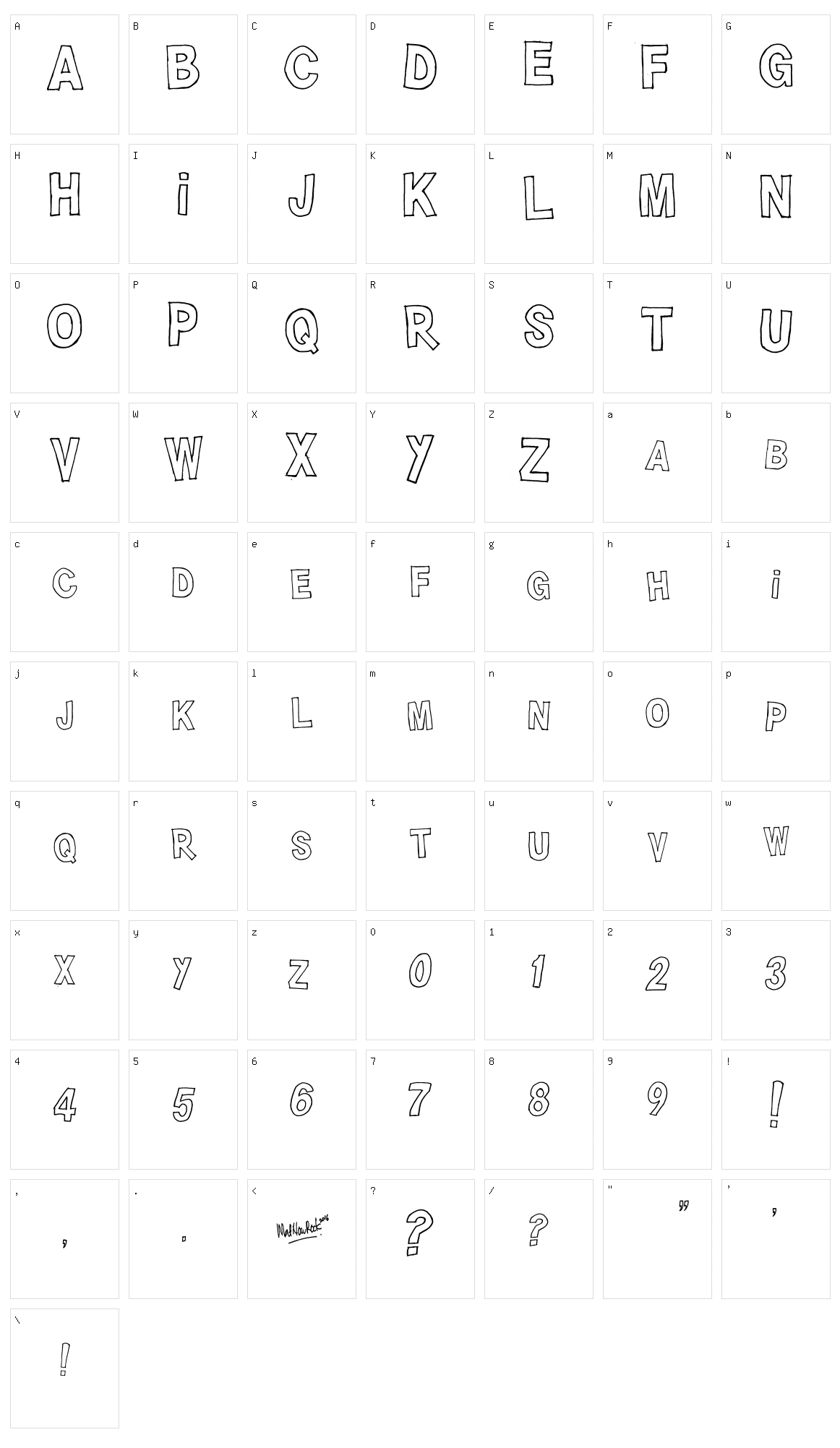
The free font Hahahaha!! is carefully designed by MatNowRock, showcasing a thoughtful balance of creativity and usability and falls under the Cartoon font style. When you download the ZIP file, it contains only 227.26 KB of font files, making it lightweight and quick to download. Please review the license details below to understand permitted usage and distribution rights. If license information is not available, we recommend using this font for personal projects only or contacting the author directly for commercial usage permissions.